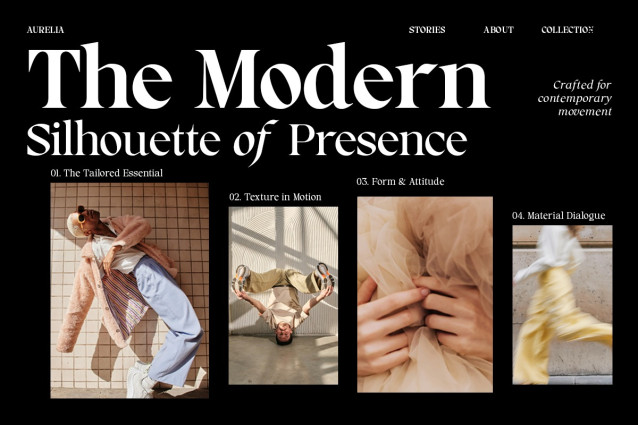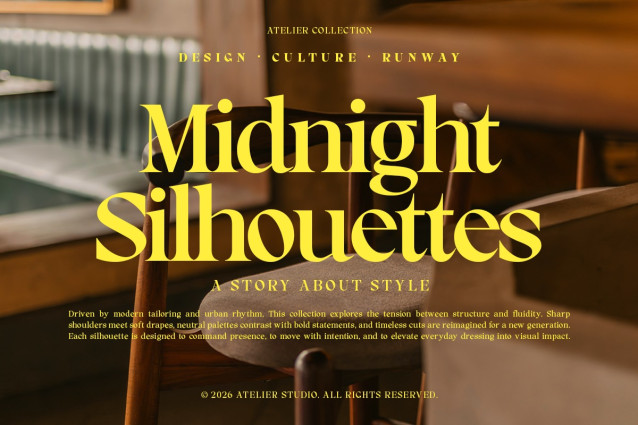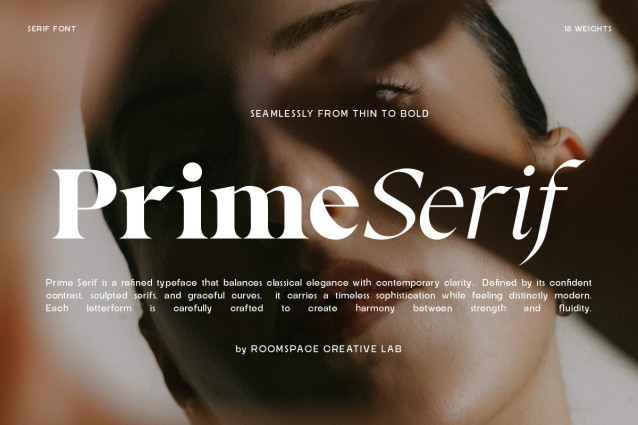
RCL Prime Serif Font
RCL Prime Serif Font a modern editorial serif designed to bring timeless elegance into contemporary design. With its sculpted serifs, refined contrast, and graceful letterforms, Prime Serif creates a strong visual presence while maintaining fluid readability. This typeface is perfect for fashion brands, luxury packaging, editorial layouts, and modern visual identities that require both sophistication and clarity. With 18 weights available, Prime Serif gives designers the flexibility to create expressive typography across headlines, branding systems, and digital layouts.